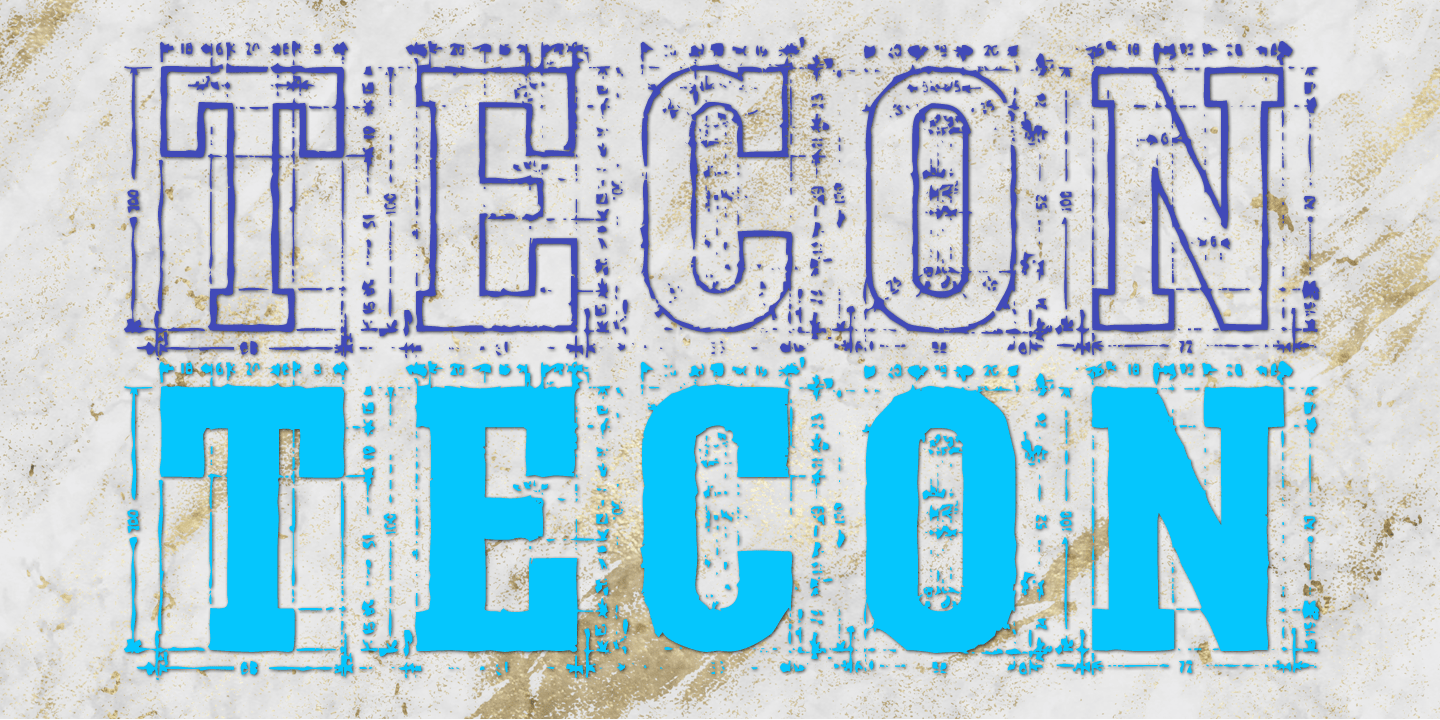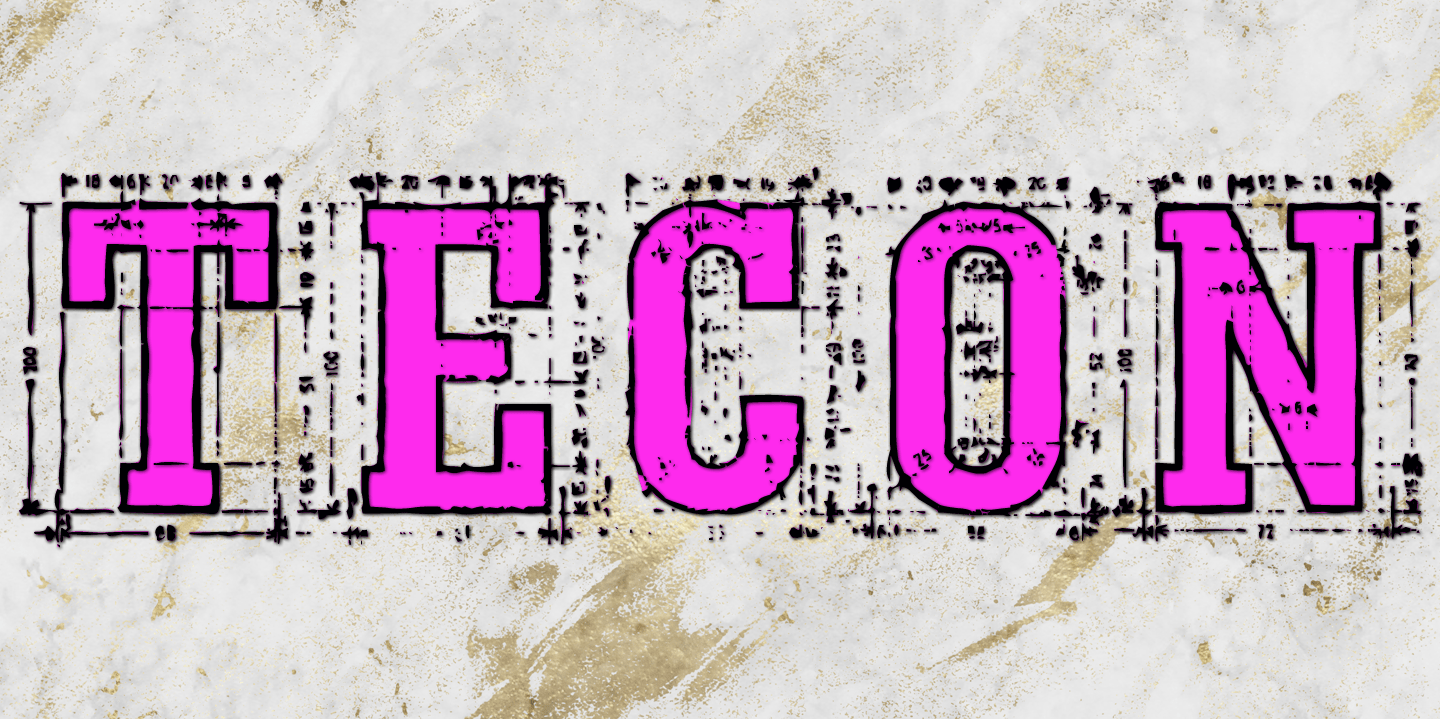
Tecon
In the days when typesetting was still a craft, typesetters had to learn how to construct the letters of the alphabet. They had to be able to draw by hand. Every young typesetter had to prove, that he was able to geometrically design a complete alphabet.
Some of them took that work so seriously, they printed specimens of their constructions. About twenty years ago I came across one of those prints and thought maybe one day I will reconstruct that typeface. But no! I found the result of my scans so interesting - much more interesting than the actual typeface - that I decided to use those scans to create a rough typeface out of those scans, with all the measurement that made it look very technical. Here it is in outline and solid. I called it ?Tecon?, short for technical-construction. The two cuts have the same metrics and can be superimposed for color effects, that is why I only sell them as a pair.